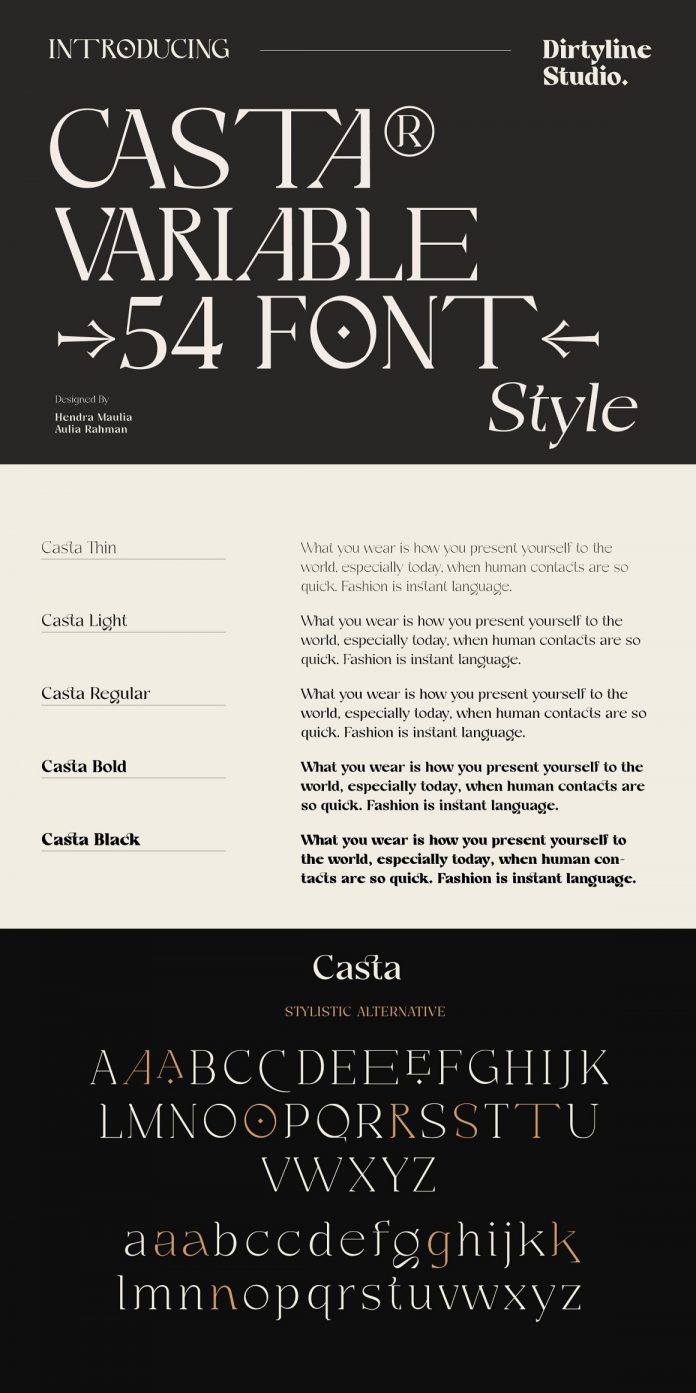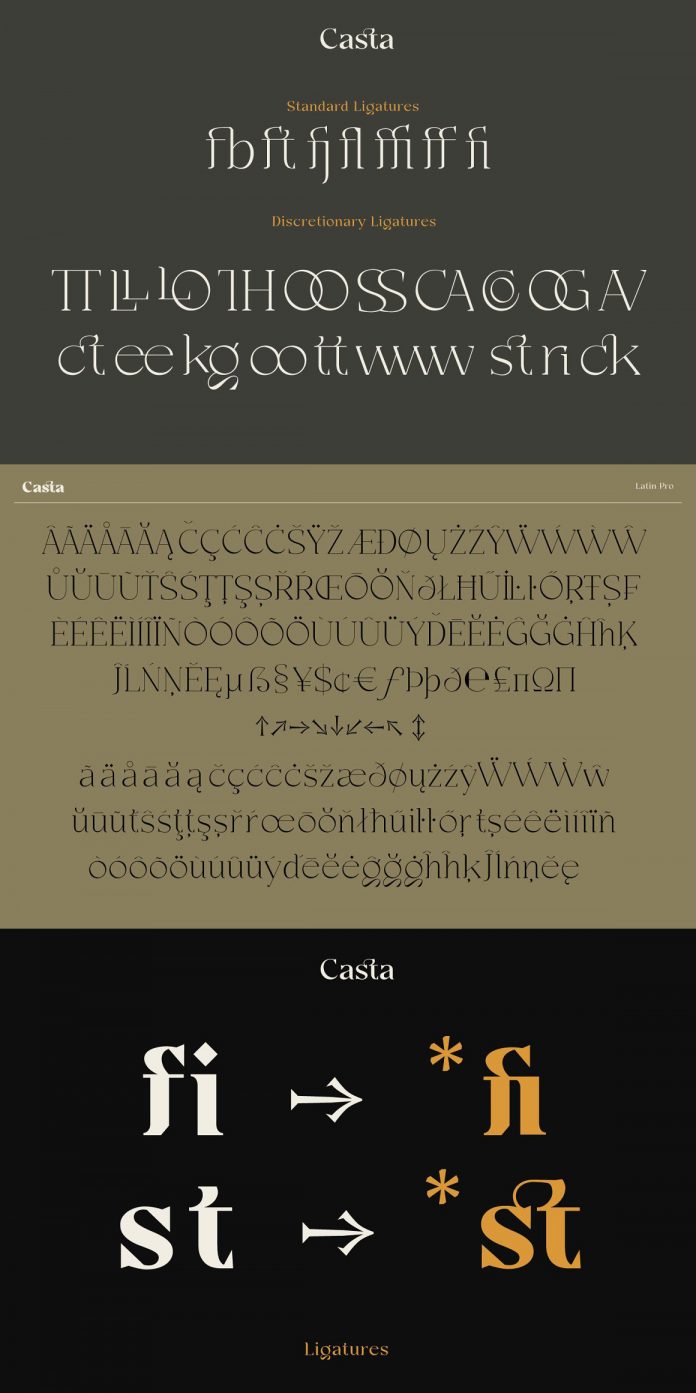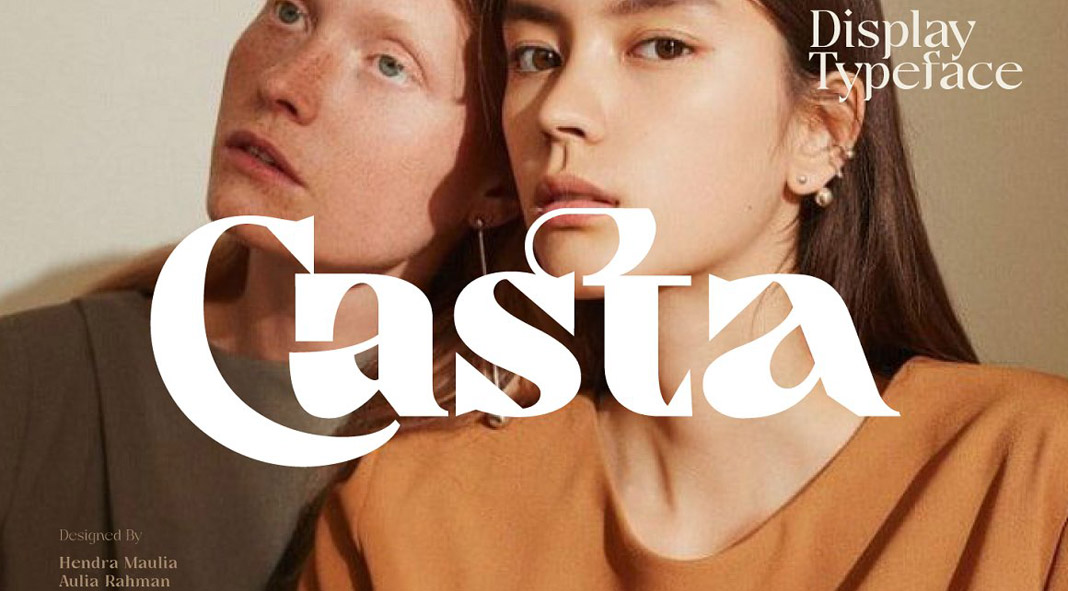
Casta, a unique display serif font family with strong contrasts.
Designed by Hendra Maulia and Aulia Rahmen of Dirtyline Studio, the Casta font family is characterized by edgy shapes and a strong contrast making this typeface a perfect choice for display sizes and easily readable in text sizes. The sharp edges of the triangular serifs as well as the distinctive letter shapes are also eye-catching features in logo designs.
The Casta font family features an extended Latin-based character set consisting of 429 glyphs covering more than 28 languages. Furthermore, it comes with advanced OpenType features such as standard and discretionary ligatures, positional numerals, stylistic alternates, and case sensitive brackets.